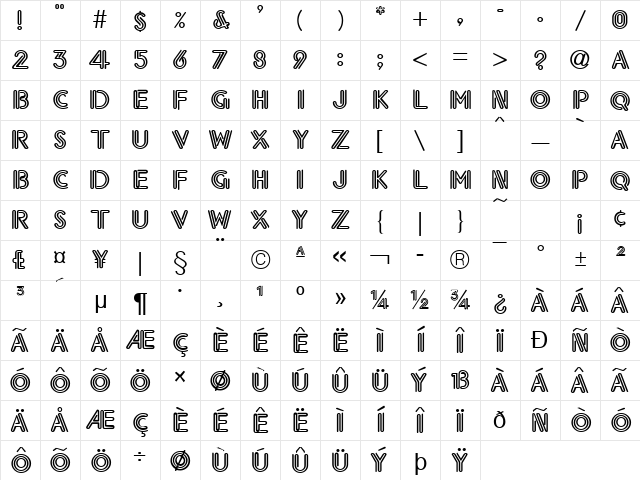
Voltage Normal
Complete Voltage Normal glyph index. Displaying only characters natively supported by Voltage Normal font.
Design Context for Voltage
Voltage is a composed and adaptable typeface that performs quietly and consistently across a wide range of design contexts.